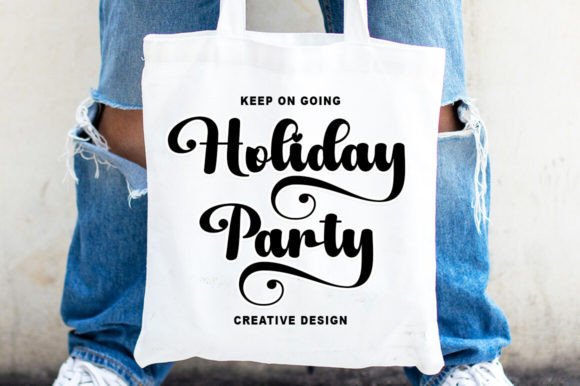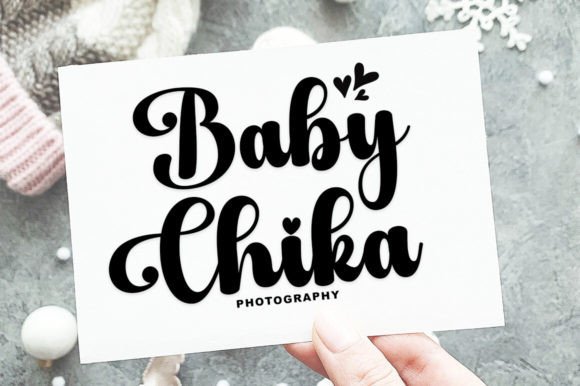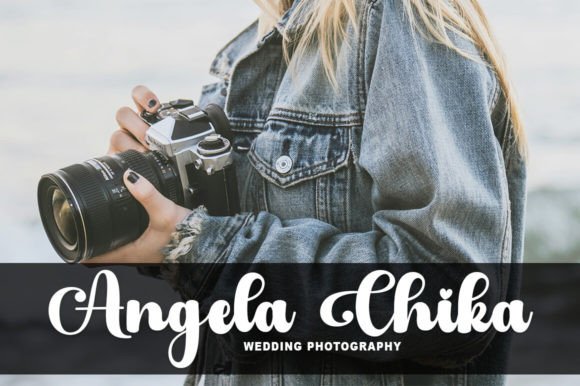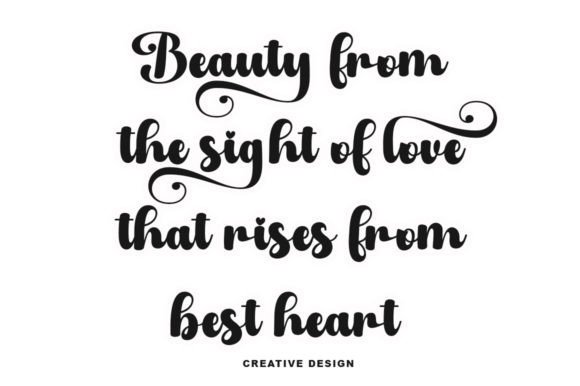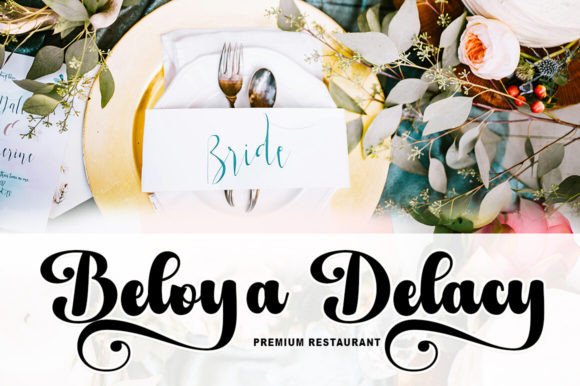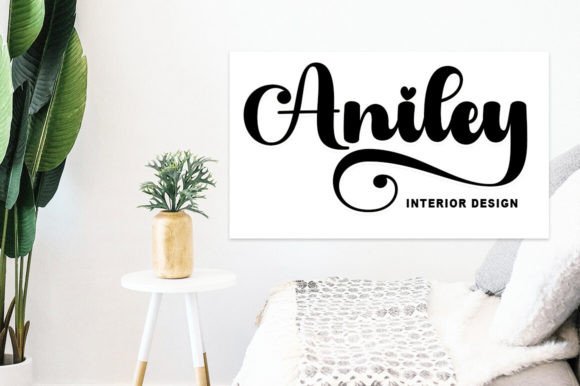
Introducing Chiky Font: A Modern Calligraphy Design for Creative Projects
Are you a designer, crafty person, or someone who loves to create beautiful visual content? Look no further than the Chiky Font, a stunning modern calligraphy design that’s perfect for a wide range of projects. In this article, we’ll dive into the features and benefits of Chiky Font, and explore how it can elevate your creative work.
What is Chiky Font?
Chiky Font is a gorgeous, modern calligraphy design that’s both casual and beautiful. Its unique swashes add a touch of elegance, making it an excellent choice for various purposes, including logos, product packaging, wedding invitations, branding, headlines, signage, labels, signatures, book covers, posters, quotes, and much more.
Key Features of Chiky Font
- Swashes and Elegance: The font’s swashes add a touch of sophistication, making it perfect for projects that require a bit of flair.
Uses of Chiky Font
Chiky Font is an incredibly versatile font that can be used for a wide range of projects, including:
- Logos: Create a stunning logo for your business or brand with Chiky Font.
- Product Packaging: Add a touch of elegance to your product packaging with this beautiful font.
- Wedding Invitations: Make your wedding invitations truly special with Chiky Font.
- Branding: Use Chiky Font to create a consistent brand image across all your marketing materials.
- Headlines: Add a pop of personality to your headlines with this modern calligraphy font.
- Signage: Create eye-catching signage with Chiky Font that’s sure to grab attention.
- Labels: Use Chiky Font to create beautiful labels for your products or gifts.
- Signatures: Add a touch of elegance to your email signatures or handwritten notes.
- Book Covers: Create a stunning book cover with Chiky Font that’s sure to stand out.
- Posters: Design eye-catching posters with this beautiful font.
- Quotes: Add a touch of inspiration to your quotes with Chiky Font.
Why Choose Chiky Font?
With so many fonts available, why choose Chiky Font? Here are just a few reasons:
- Unique and Elegant: Chiky Font is a one-of-a-kind, elegant font that’s sure to make your projects stand out.
- Versatile: This font can be used for a wide range of projects, from logos to book covers.
In conclusion, Chiky Font is a stunning modern calligraphy design that’s perfect for designers, crafters, and anyone who loves to create beautiful visual content. With its unique swashes, PUA Unicode encoding, and versatility, Chiky Font is an excellent choice for a wide range of projects. Whether you’re looking to create a logo, wedding invitation, or book cover, Chiky Font is sure to elevate your creative work.